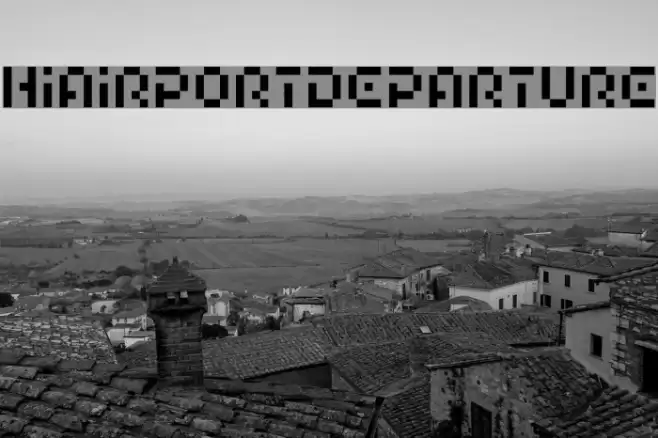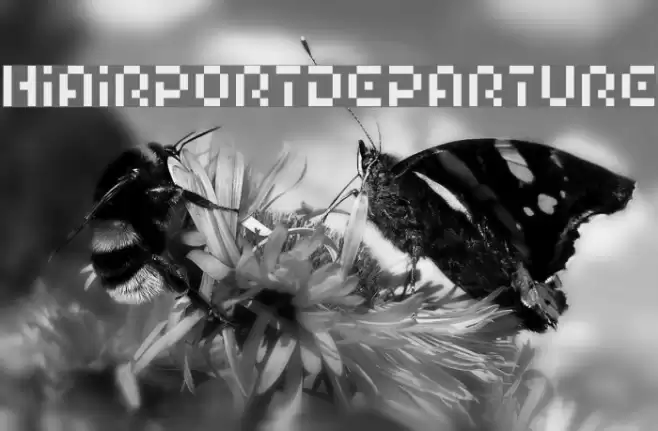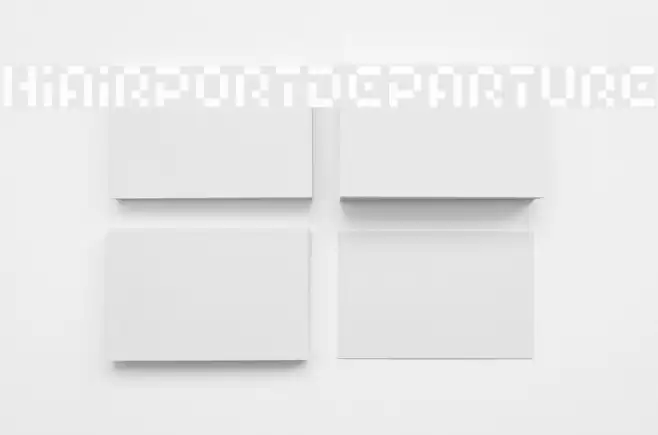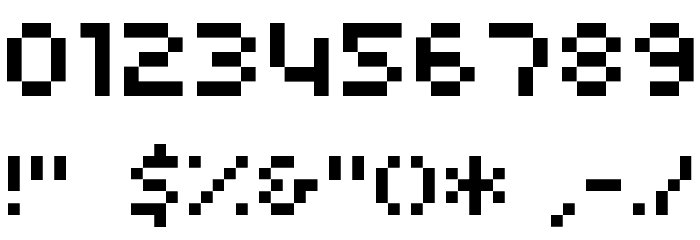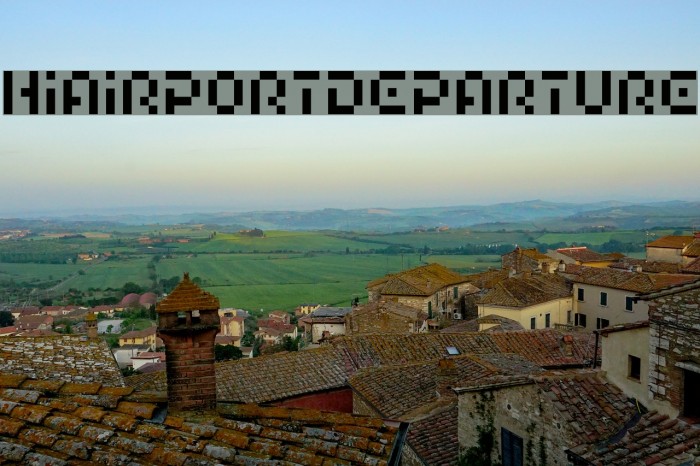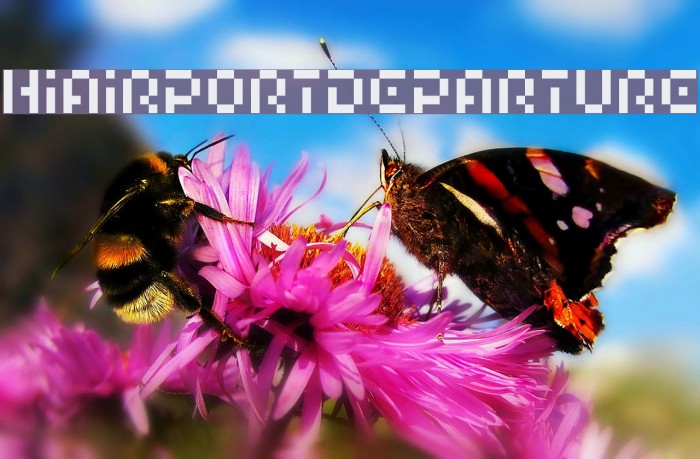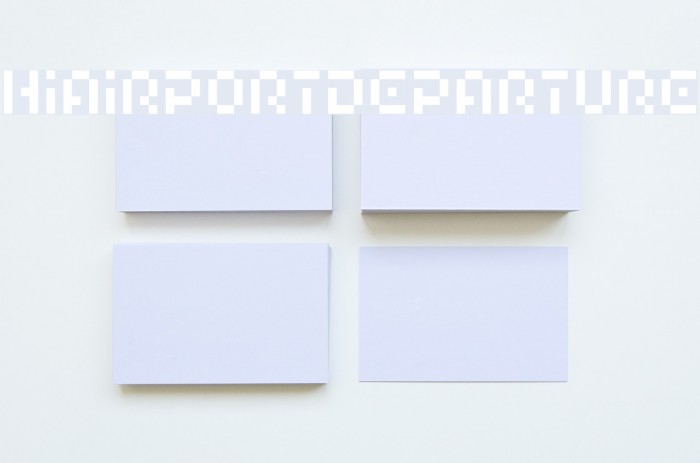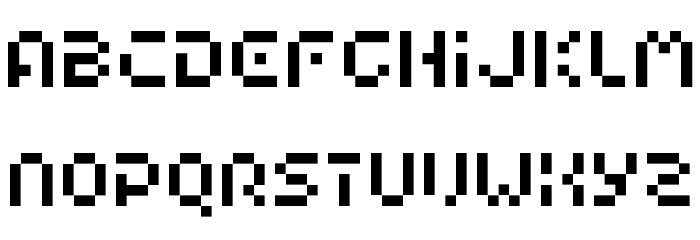
HIAIRPORTDEPARTURE Font
HIAIRPORTDEPARTURE Description
This font features a pixelated, blocky design reminiscent of early digital displays and video game graphics. Each character is constructed with a uniform grid-like structure, giving it a distinctly retro and technological feel. The uppercase and lowercase letters maintain a consistent height, contributing to a cohesive and orderly appearance. The numerals and special characters follow the same pixelated style, ensuring visual harmony across all elements. This font's geometric and monospaced nature makes it ideal for applications where clarity and a vintage digital aesthetic are desired.
A pixelated, blocky font with a retro digital display style from Pixel fonts.
- Proposed Projects: Ideal for retro video game graphics, digital-themed posters, and tech-related branding.
- Overall Style: Vintage